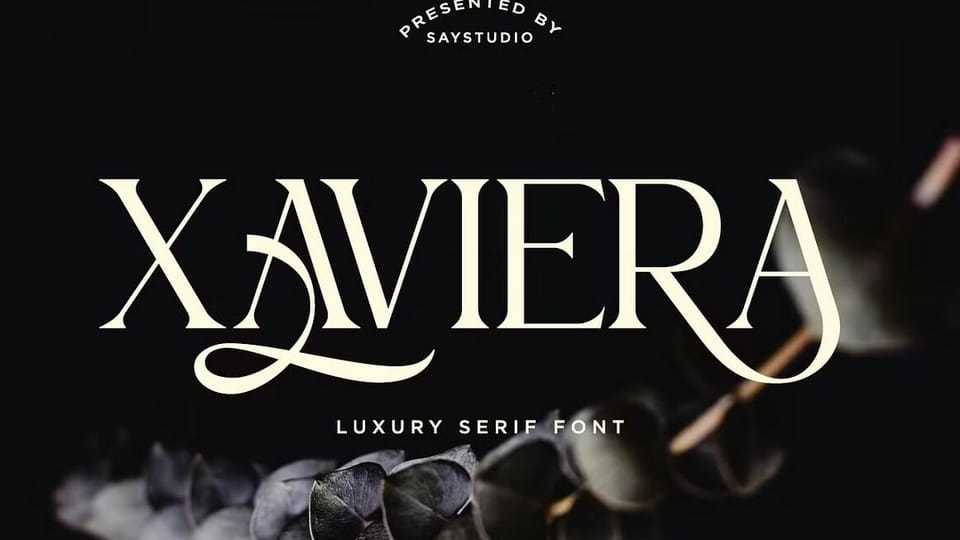
Download Xaviera font, a typeface that captures the perfect harmony between modern elegance and timeless sophistication, designed to enhance premium branding.
Designer: Saystudio